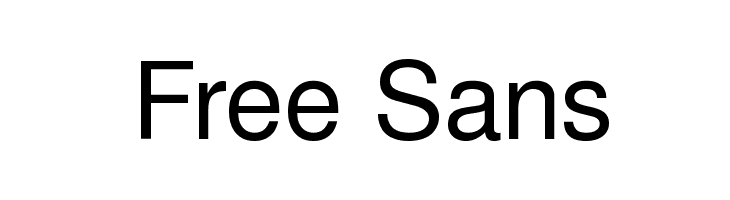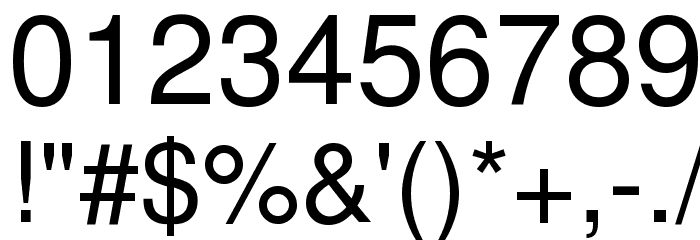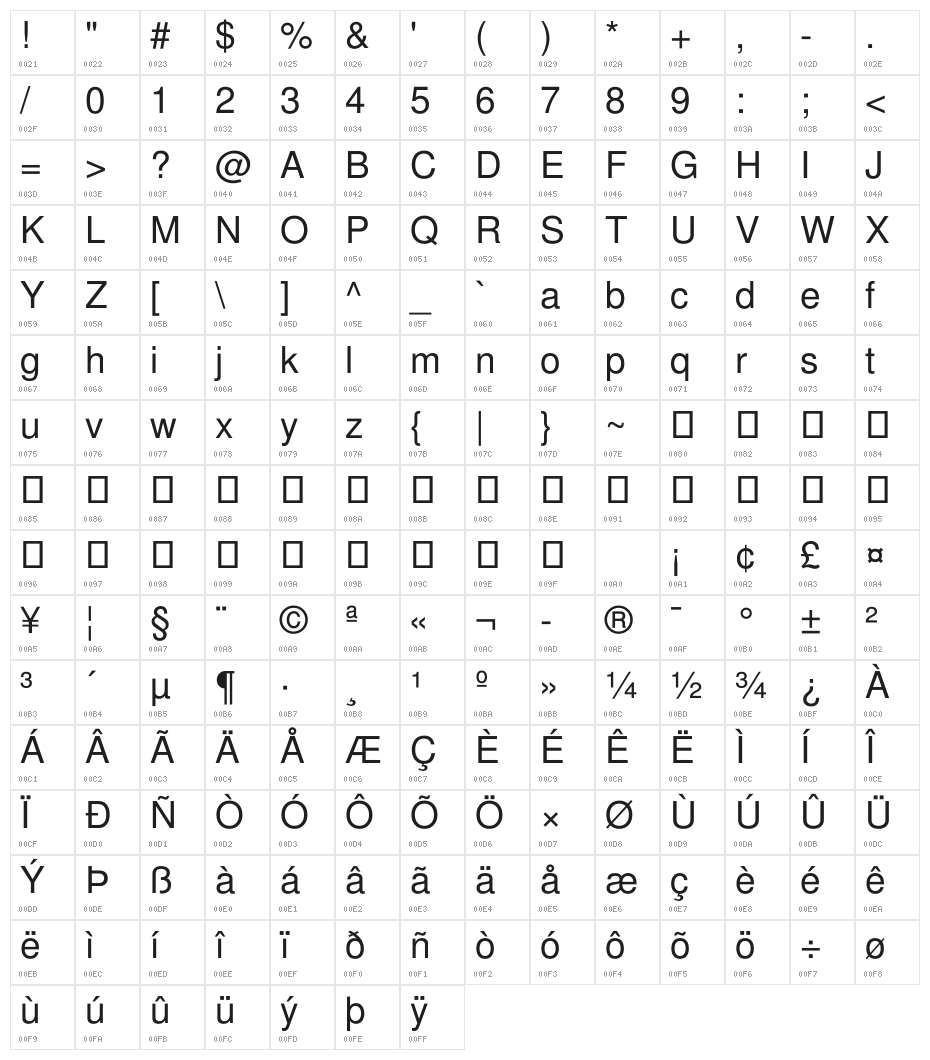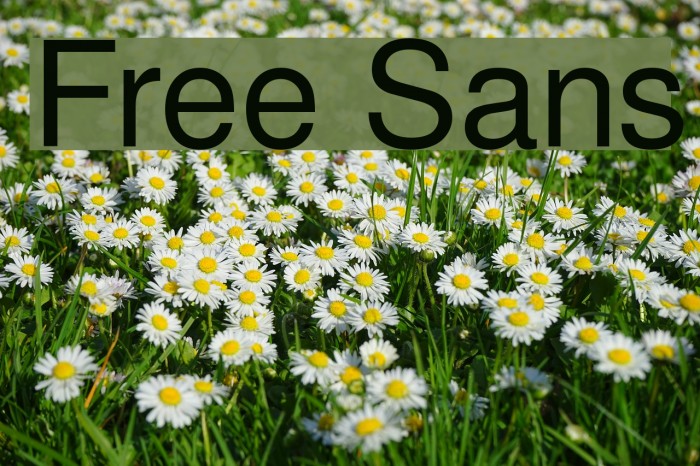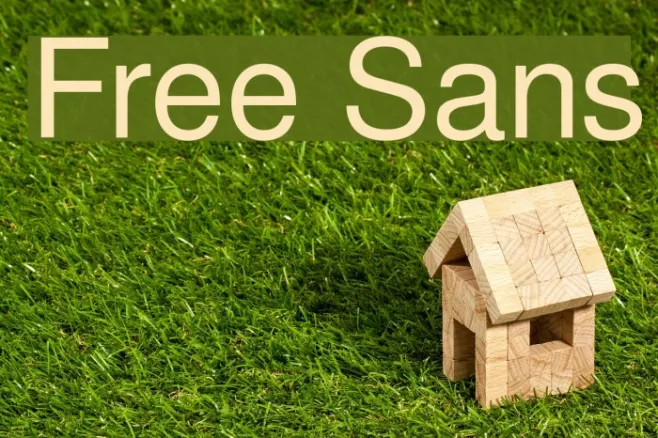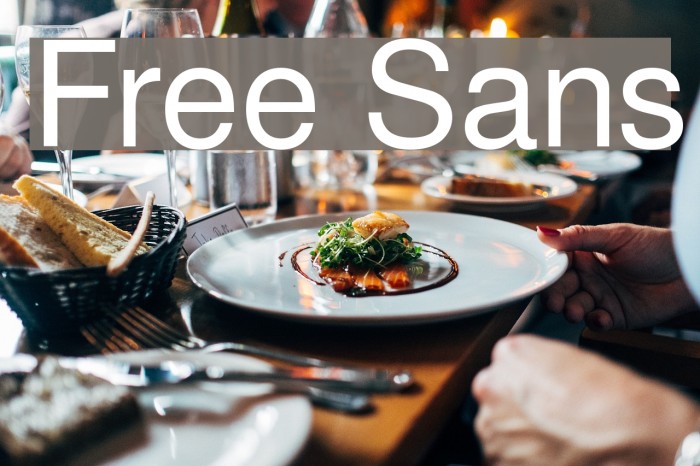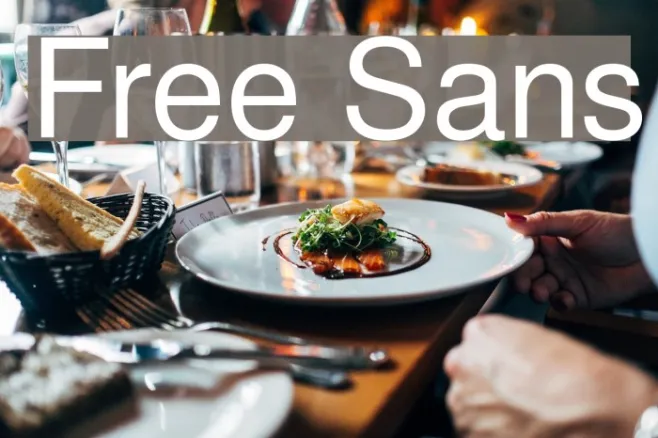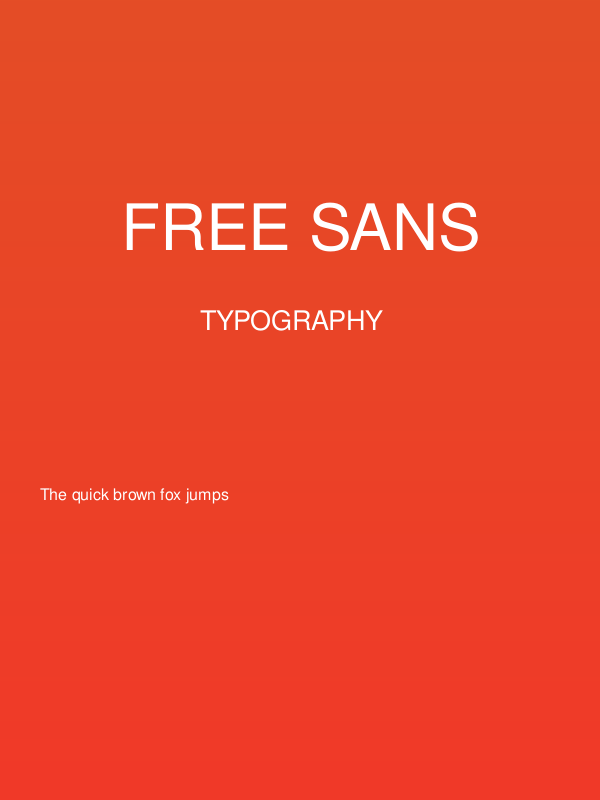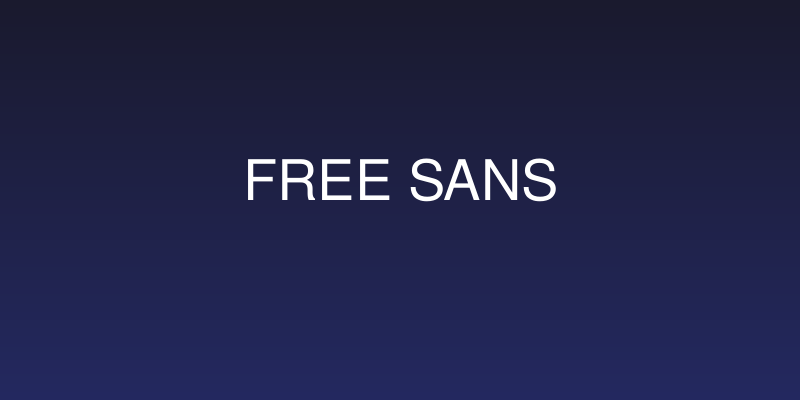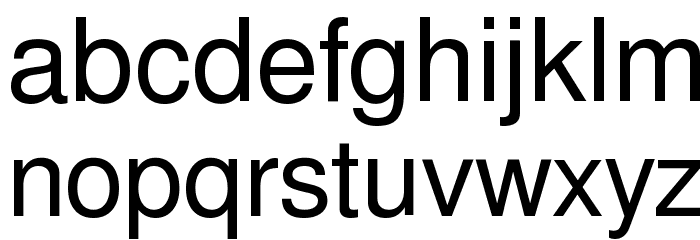
Free Sans Font
Free Sans Description
This font exhibits a clean and modern sans-serif style, characterized by its simplicity and readability. The letters are evenly spaced with a consistent stroke width, providing a balanced and harmonious appearance. The uppercase and lowercase letters maintain a uniform height, contributing to its legibility. The numerals are clear and distinct, making them easily recognizable. Special characters are well-defined, ensuring versatility in various applications. This font's straightforward design makes it suitable for both digital and print media, offering a professional and contemporary look.